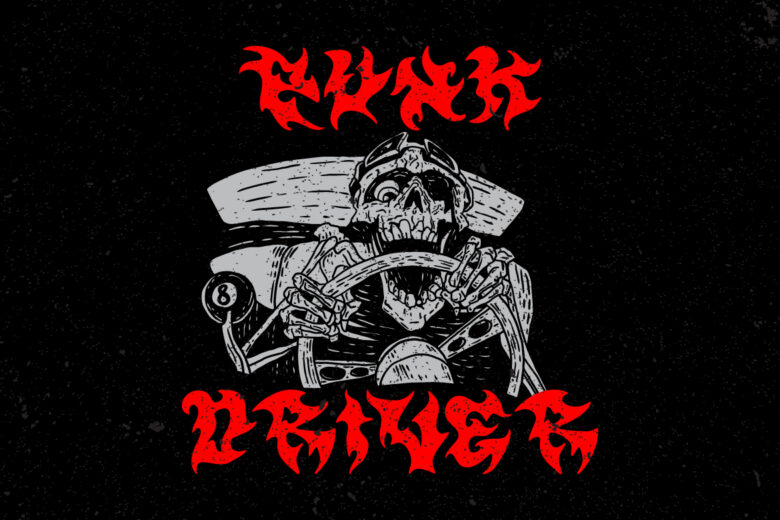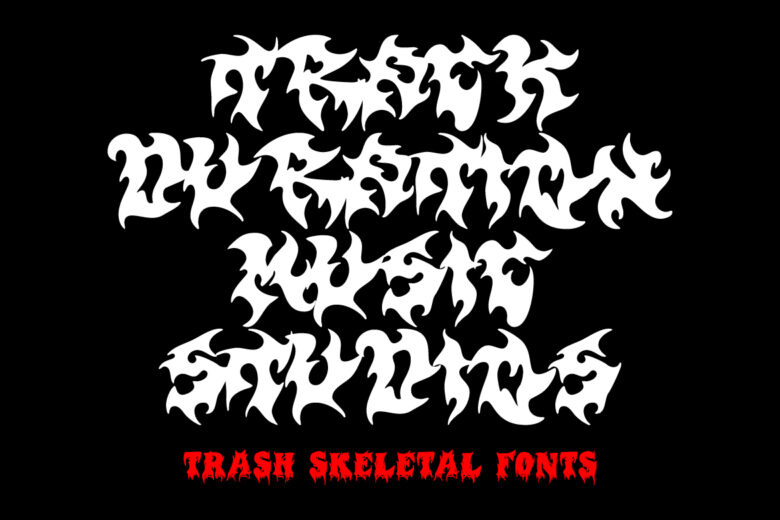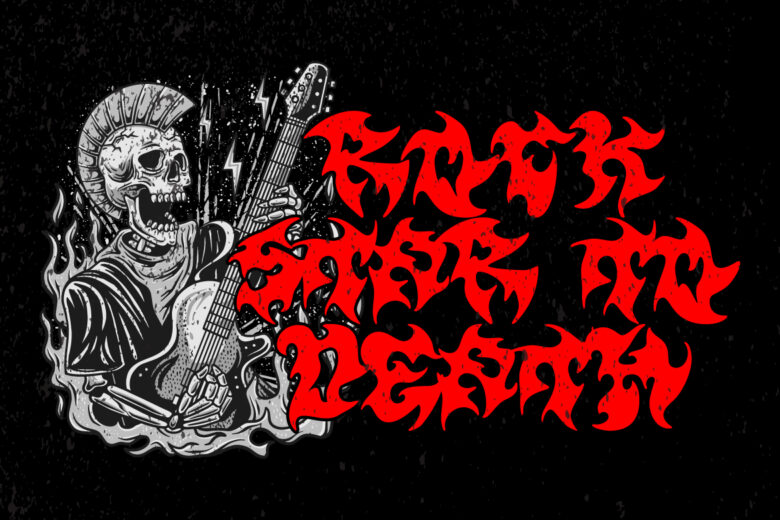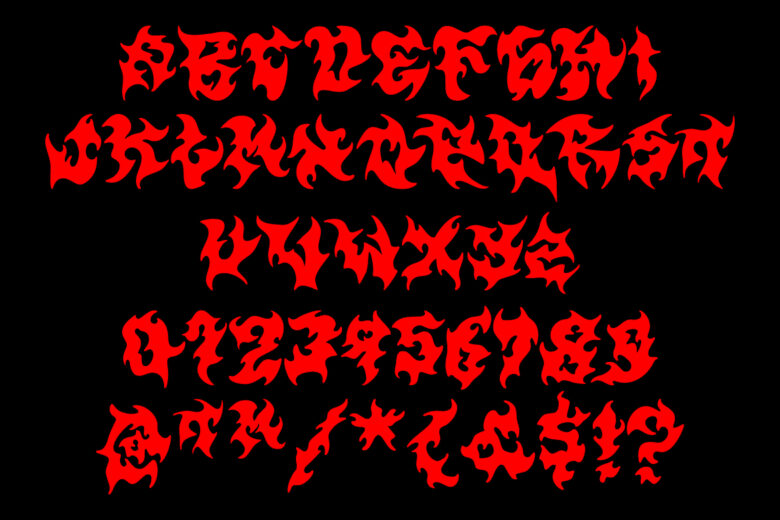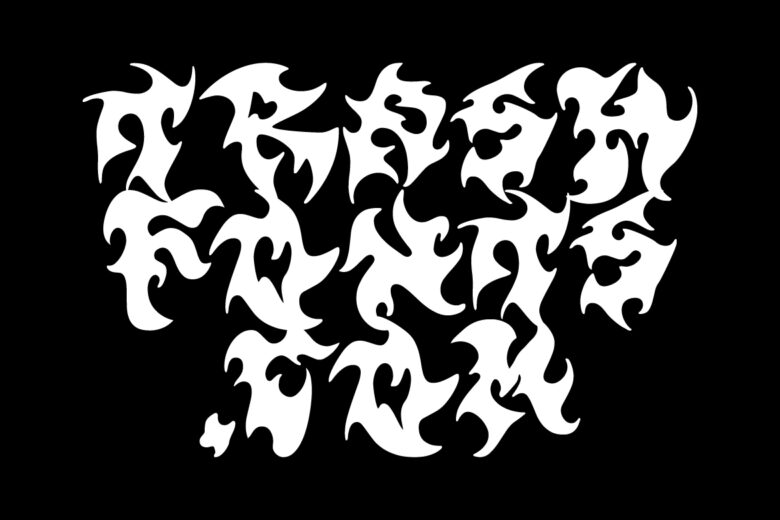
Introducing Trash Skeletal – Your Death Metal Font: a brutally designed typeface that channels the macabre essence of death metal. Its skeletal, bone-like characters add a sinister touch to your designs. Perfect for merchandise, logos, posters, and more, Trash Skeletal Font is your weapon of choice to create dark and menacing visual statements.
- Features: Uppercase, Lowercase, Numeral, Simple Punctuation & Multilingual.